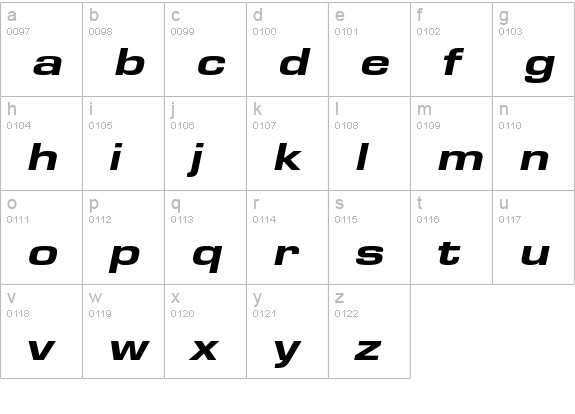
EuroseWide Heavy Italic Font Details
EuroseWide Heavy Italic is a heavy, high-impact, italic variant in the EuroseWide typeface family \xE2\x80\x94 well suited to high-impact headlines, posters, and display advertising.
EuroseWide Heavy Italic font is a bold and striking typeface that exudes strength and elegance. Its thick, slanted lines create a dynamic and eye-catching appearance, making it perfect for headlines, titles, and other prominent text. The italic styling adds a touch of sophistication and flair to any design project. This font is available for free download at FontsMarket.com, making it accessible to designers and creatives looking to enhance their work with a unique and impactful typeface. Whether you're designing a poster, logo, or website, EuroseWide Heavy Italic font is sure to make a bold statement and leave a lasting impression. Upgrade your typography game with this versatile and stylish font today!